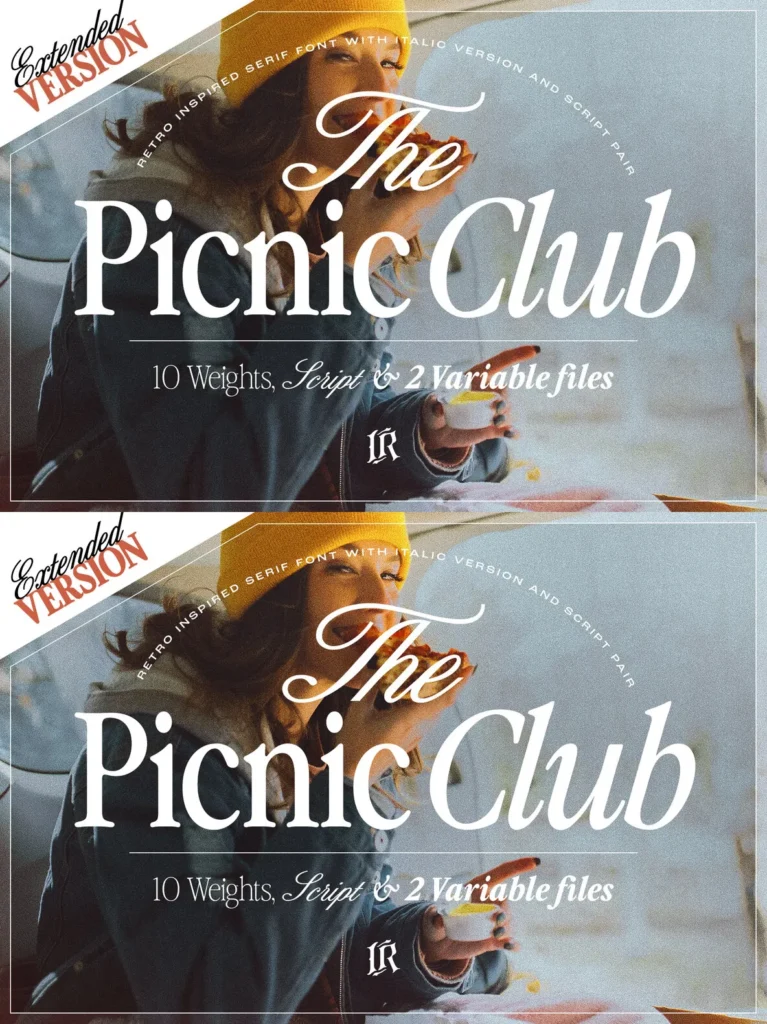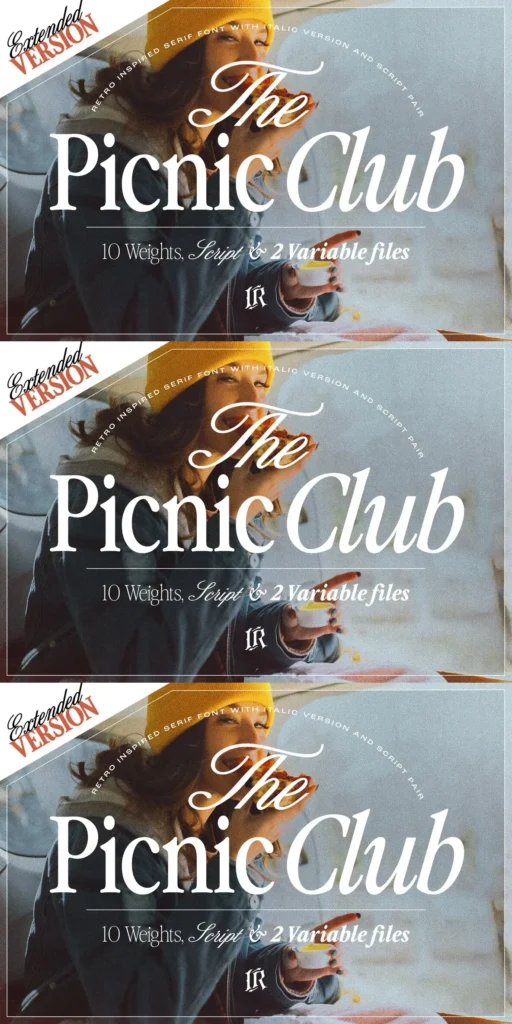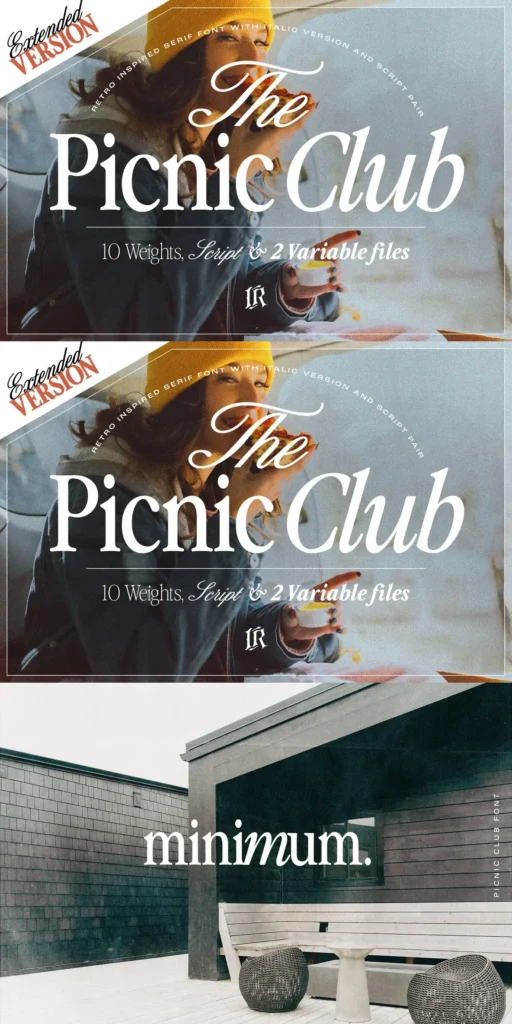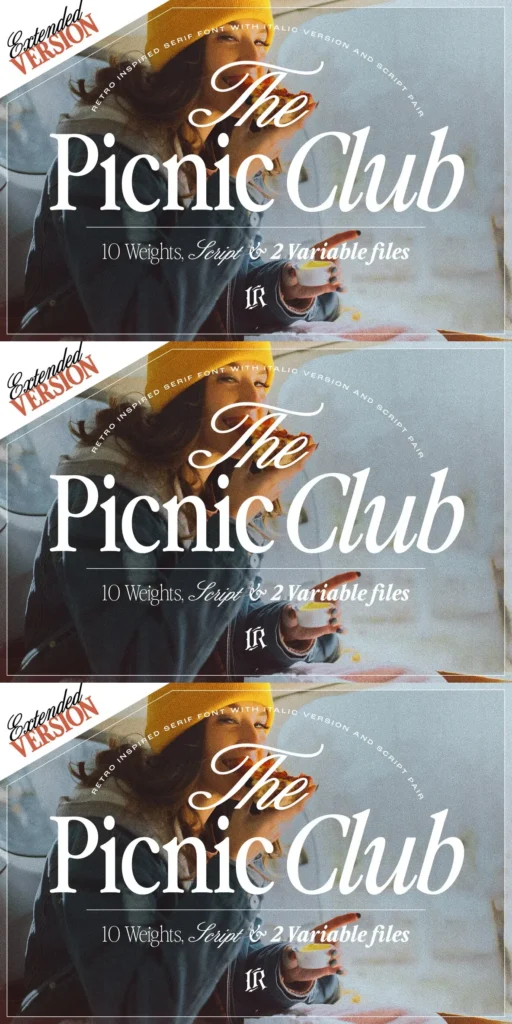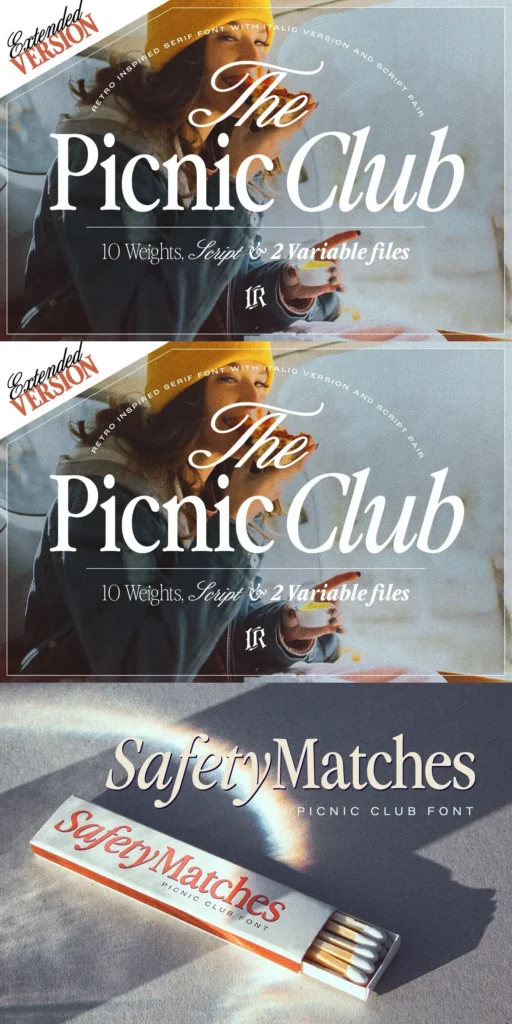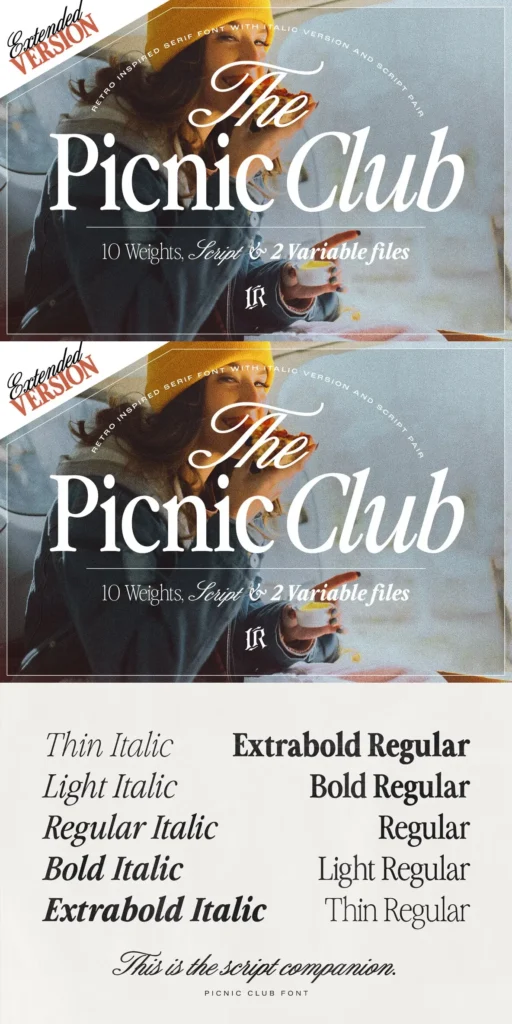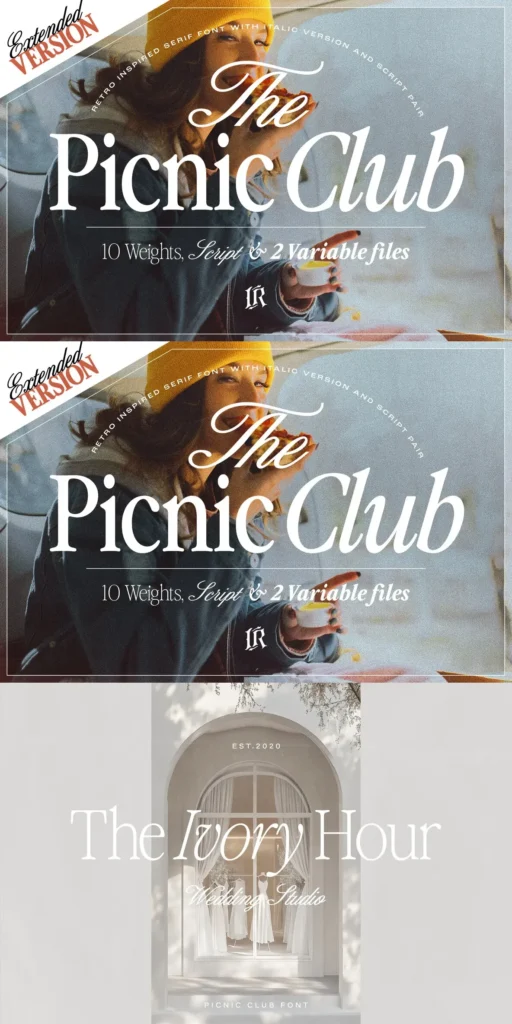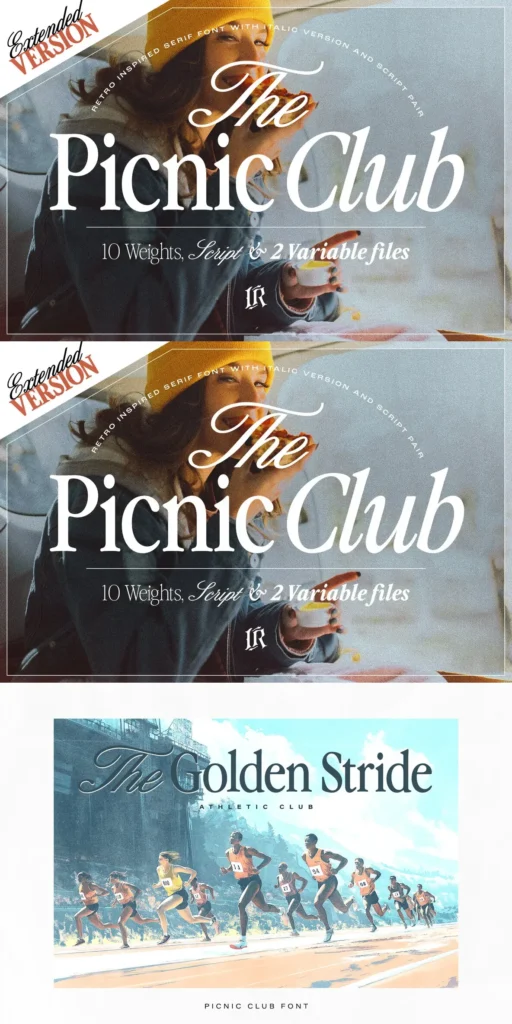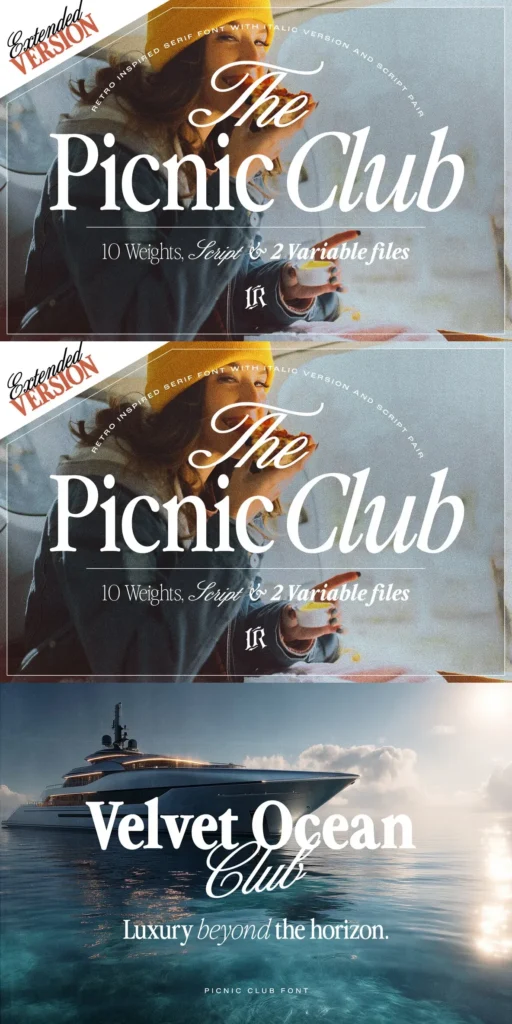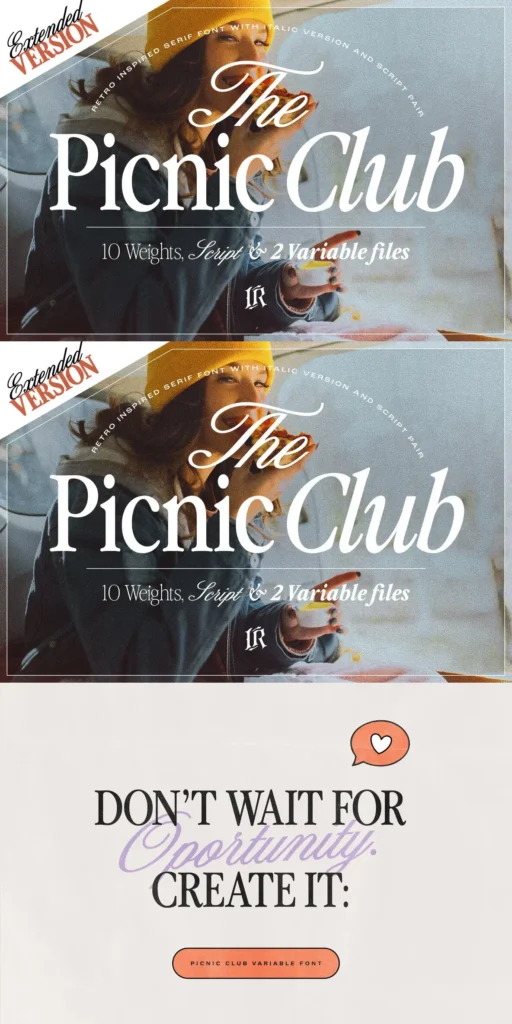
The Picnic Club: Nostalgic serif, tuned for headlines
Inspired by the distinctive 1980s groove and balanced with modern sophistication, this vintage serif font began as a display serif for impactful headlines and retro branding. It has since grown into a comprehensive type system that suits a wide range of design needs, from expressive brand work to structured editorial use.
The type family includes 11 weights, from Thin to ExtraBold, for clear control over hierarchy and tone. A complementary Script font adds a lively, handwritten style that pairs naturally with the serifs. Regular and Italic styles are available across all weights, and the package also includes dedicated variable font files for flexible use across formats. Designed by Ivan Rosenberg.
Features
11 weights from Thin to ExtraBold for flexible typography
Complementary Script font with a playful flow
Regular and Italic styles in all weights
Separate variable font files for adaptive design
This expanded collection suits nostalgic mood boards, editorial layouts, packaging, logotypes, and contemporary vintage branding. It bridges eras with warmth and character while staying clear and impactful.
Ideal for display typography, brand identities, advertising, packaging, titles, headlines, and editorial design, it supports both retro and modern aesthetics with equal fluency.The Picnic Club: Nostalgic serif, tuned for headlines
Inspired by the distinctive 1980s groove and balanced with modern sophistication, this vintage serif font began as a display serif for impactful headlines and retro branding. It has since grown into a comprehensive type system that suits a wide range of design needs, from expressive brand work to structured editorial use.
The type family includes 11 weights, from Thin to ExtraBold, for clear control over hierarchy and tone. A complementary Script font adds a lively, handwritten style that pairs naturally with the serifs. Regular and Italic styles are available across all weights, and the package also includes dedicated variable font files for flexible use across formats. Designed by Ivan Rosenberg.
Features
11 weights from Thin to ExtraBold for flexible typography
Complementary Script font with a playful flow
Regular and Italic styles in all weights
Separate variable font files for adaptive design
This expanded collection suits nostalgic mood boards, editorial layouts, packaging, logotypes, and contemporary vintage branding. It bridges eras with warmth and character while staying clear and impactful.
Ideal for display typography, brand identities, advertising, packaging, titles, headlines, and editorial design, it supports both retro and modern aesthetics with equal fluency.